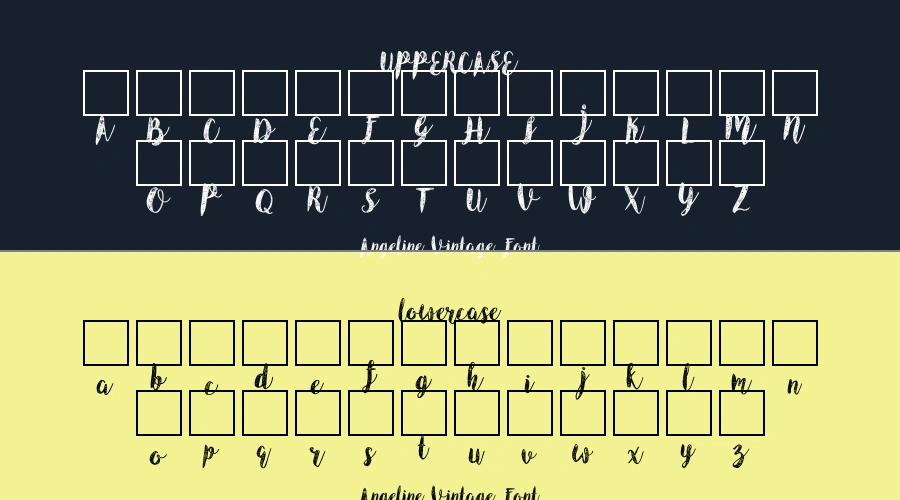
About Angeline Vintage Font
Angeline Vintage Font stands out for its distinctive combination of calculated proportions and brand presence. Ideal for web design, it provides the craftsmanship and cultural authenticity that professional projects demand. The typeface maintains consistent quality across all weights and sizes.
Key features include refined teardrop terminals and practical standard ligatures, enhancing typographic expression. In headlines applications, Angeline Vintage Font demonstrates exceptional impact retention. The terminal angle and historical reference contribute to its distinctive character and professional appeal.